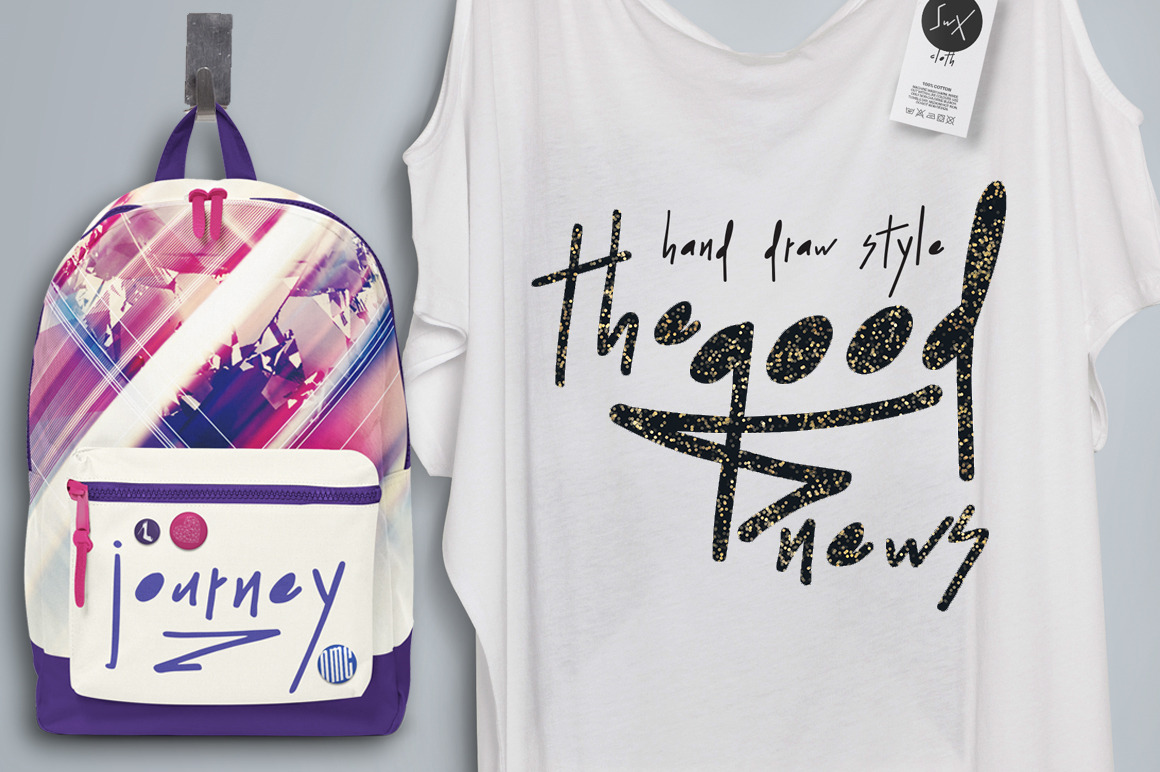
The Good News // handwritten font
Take a look "The Good News". A unique typeface. "The Good News" Typeface allows you to create a word to look like hand lettering. it is suitable for your design project needs such as shirt, jacket, posters, branding, flyers, cards, invitations, lettering projects and many more.